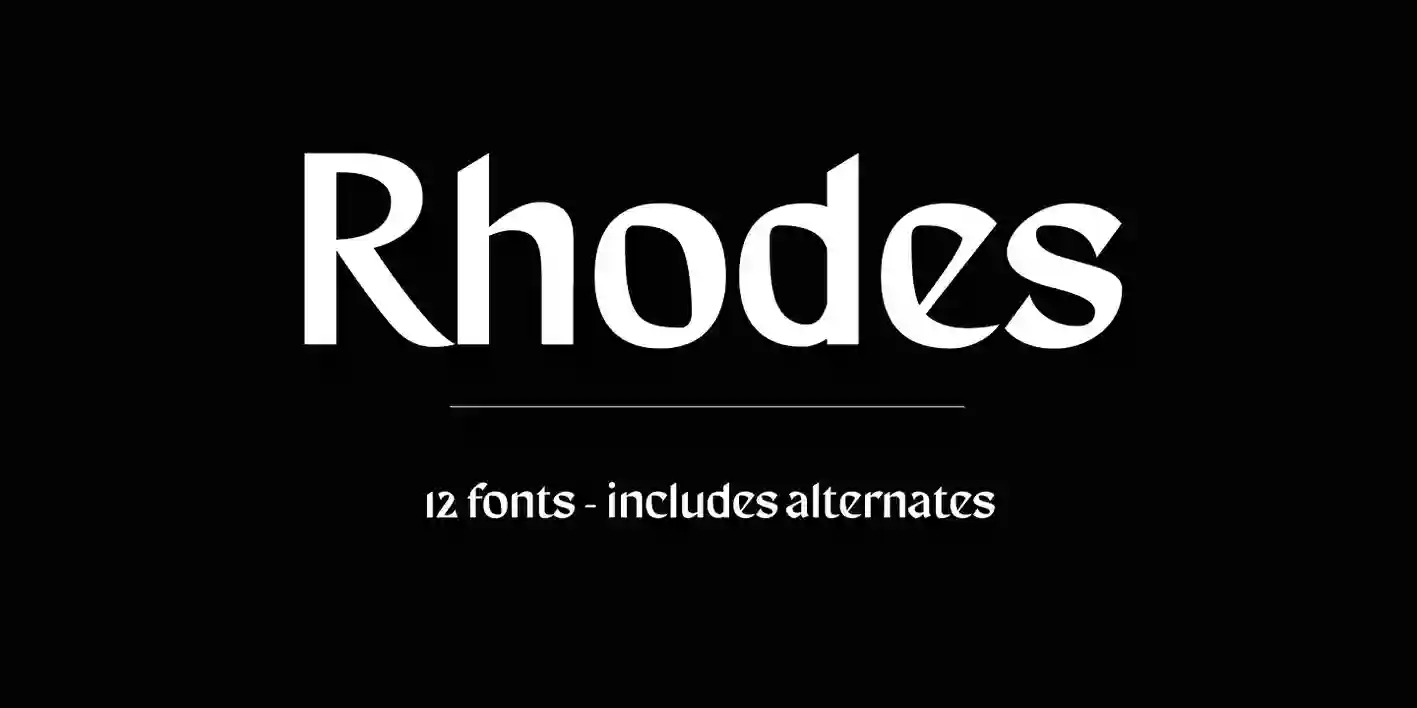
The Rhodes Font is perfectly designed for numerous sophisticated applications including luxury travel branding, Mediterranean resort marketing, upscale hospitality communications, exclusive yacht club materials, premium lifestyle magazines, high-end real estate promotions, luxury cruise line branding, elegant wedding invitations, sophisticated wine labels, and refined cultural event promotions. Its distinguished character makes it particularly effective for luxury hospitality brands, premium travel companies, exclusive resorts, and lifestyle businesses seeking to convey Mediterranean elegance, timeless sophistication, and coastal luxury in their visual communications and brand presentations.
What makes the Rhodes Font extraordinarily exciting is its perfect embodiment of Mediterranean sophistication and coastal elegance combined with contemporary design excellence. This distinguished typeface captures the essence of Greek island beauty and ancient architectural grandeur while incorporating modern typographic principles that ensure optimal performance across today's luxury market landscape. The font's captivating character emerges from its classical proportions, refined letterforms, and carefully crafted details that evoke a sense of timeless luxury and Mediterranean charm, making it perfect for brands seeking to establish prestige and appeal to affluent, travel-conscious audiences.
The Rhodes Font family encompasses multiple weights and styles designed to provide comprehensive luxury hospitality branding solutions. The collection typically includes thin, light, regular, medium, bold, and black weights, with many versions offering elegant italic variants that enhance the font's sophisticated appeal and Mediterranean character. Some editions may include decorative alternates, classical ligatures, and ornamental elements that provide additional design options for creating unique typographic treatments and luxury travel brand applications.
Luxury hospitality designers and premium travel marketing professionals consistently choose the Rhodes Font Free Download for its exceptional elegance and coastal sophistication. The font features meticulously crafted spacing and kerning that ensures harmonious text flow and optimal readability across various luxury applications, from delicate menu designs to grand resort signage. Its refined construction maintains sophistication and prestige in both intimate and large-scale uses, while the comprehensive character set includes uppercase and lowercase letters, numerals, punctuation marks, and special symbols, along with extensive language support for international luxury travel brands and global hospitality communications.
The Rhodes Font represents the pinnacle of luxury travel typography, combining Mediterranean heritage with contemporary functionality. Its sophisticated aesthetic commands attention while maintaining the elegance required for premium hospitality applications. The font's remarkable adaptability allows it to work effectively in both traditional luxury contexts and modern resort branding, ensuring consistent prestige across luxury websites, premium marketing materials, exclusive invitations, and high-end hospitality communications.
Experience Mediterranean luxury and timeless elegance with the sophisticated beauty and coastal charm of the Rhodes Font, the ultimate choice for luxury hospitality typography excellence.